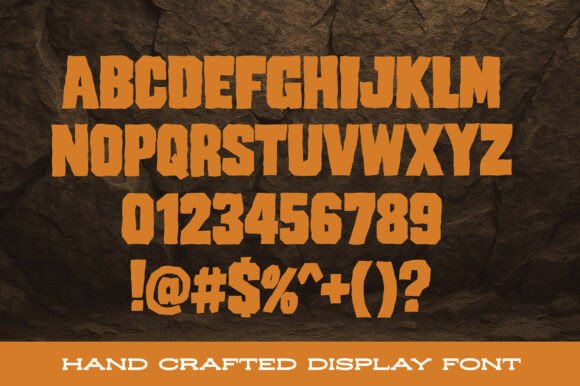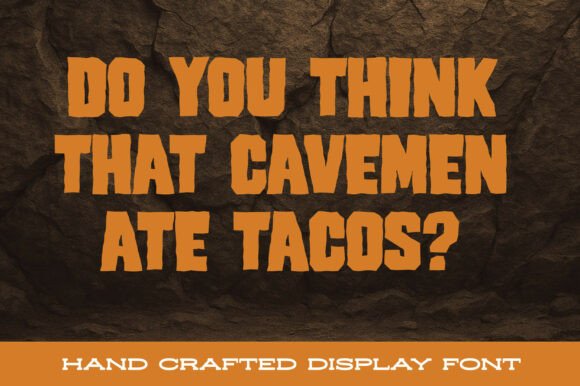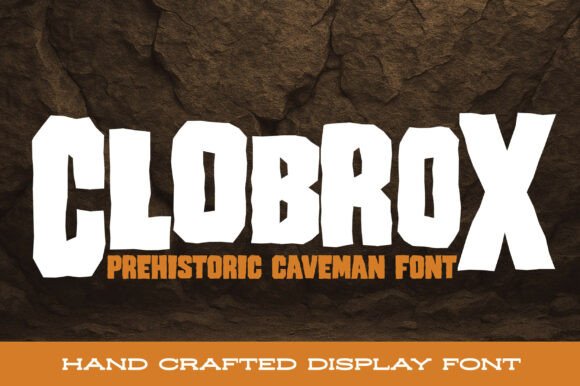
Unleash the Prehistoric Power of Clobrox Font
Are you looking for a font that can add a touch of raw, prehistoric energy to your designs? Look no further than Clobrox Font, a bold, primitive display font that’s perfect for creating playful caveman themes, dino branding, kids’ designs, adventure graphics, and more. In this article, we’ll explore the unique features of Clobrox Font and how it can elevate your designs to the next level.
The Inspiration Behind Clobrox Font
Clobrox Font is inspired by the rough, rugged textures of ancient stone and the fossilized remains of a bygone era. The font’s creator imagined the letters carved from the rubble of deep caverns and ancient dino ruins, giving each letterform a unique, hand-crafted feel. The result is a font that’s both bold and primitive, with thick, chunky letterforms that look like they’ve been smashed from stone.
Key Features of Clobrox Font
So, what makes Clobrox Font so special? Here are just a few of its key features:
- Rough fractures and jagged edges: Each letterform has a unique, hand-crafted feel, with rough fractures and jagged edges that give the font its prehistoric charm.
- Gritty texture: The font has a gritty, textured look that’s reminiscent of stone and rock.
- Thick, chunky letterforms: The letters are bold and chunky, making them perfect for display text and headlines.
- Playful, adventurous feel: Clobrox Font has a playful, adventurous feel that’s perfect for designs that need a touch of prehistoric energy.
Use Cases for Clobrox Font
So, what can you use Clobrox Font for? Here are just a few ideas to get you started:
- Caveman themes: Create playful caveman-themed designs, complete with rough, prehistoric textures and bold, chunky lettering.
- Dino branding: Use Clobrox Font to create bold, eye-catching branding for dinosaur-themed products and services.
- Kids’ designs: The font’s playful, adventurous feel makes it perfect for kids’ designs, including children’s books, toys, and games.
- Adventure graphics: Use Clobrox Font to create bold, attention-grabbing graphics for adventure-themed designs, including posters, flyers, and brochures.
Tips for Using Clobrox Font
Here are a few tips for getting the most out of Clobrox Font:
- Use it sparingly: Clobrox Font is bold and attention-grabbing, so use it sparingly to avoid overwhelming your design.
- Pair it with contrasting fonts: Pair Clobrox Font with contrasting fonts to create visual interest and add depth to your design.
- Experiment with colors and textures: Don’t be afraid to experiment with different colors and textures to enhance the font’s prehistoric feel.
Clobrox Font is a unique and powerful font that’s perfect for designers and crafters looking to add a touch of prehistoric energy to their designs. With its bold, chunky letterforms, rough fractures, and jagged edges, this font is sure to make a statement. Whether you’re creating caveman themes, dino branding, kids’ designs, or adventure graphics, Clobrox Font is the perfect choice. So why wait? Download Clobrox Font today and unleash the prehistoric power of this amazing font!